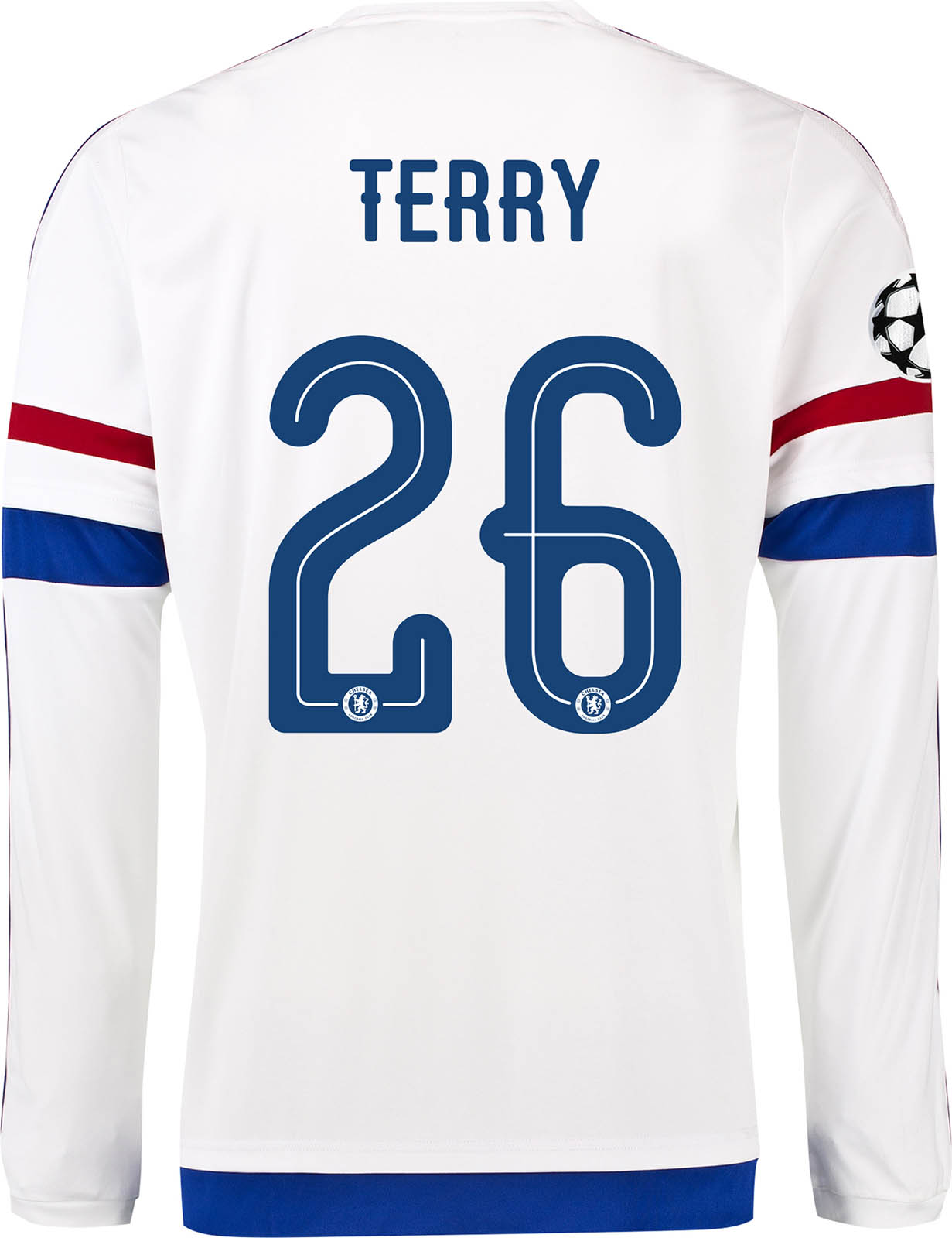
Chelsea 15-16 Font Revealed
In line with the new Chelsea 15-16 Kits, the English giants have also updated their player names and numbers font.
Chelsea 15-16 Font
These images show the new Chelsea 2015-16 typeface on the kits of Diego Costa, Fàbregas and Hazard.
After utilizing a 3D font style for a few years, Chelsea will boast an all-new font for their 2015-16 cup campaigns. The new Chelsea typeface comes with a sleek look and rounded edges, while a slim line runs through each number centrally.
A monochromatic Chelsea badge is placed at the very bottom of the Chelsea 15-16 font, which draws inspiration from the iconic Umbro font used by Chelsea in the mid-2000s.
While Chelsea will continue the standard Premier League lettering style for league matches, they will don the unique new Chelsea 15-16 font in all cup competitions.